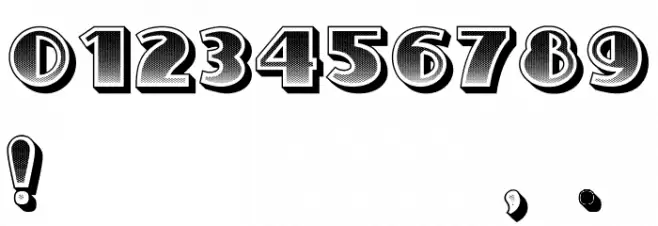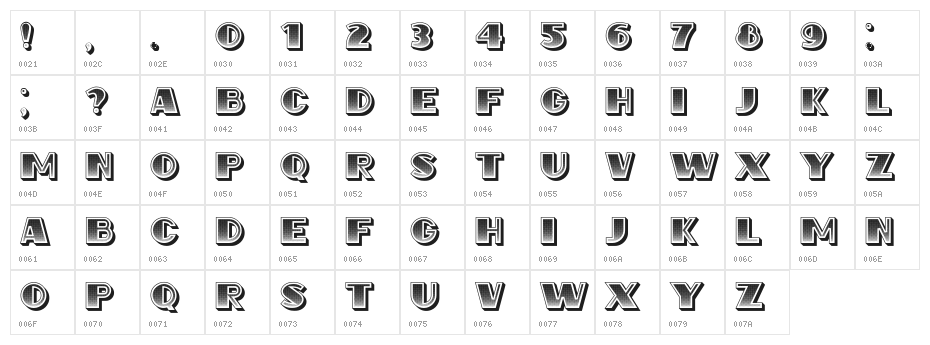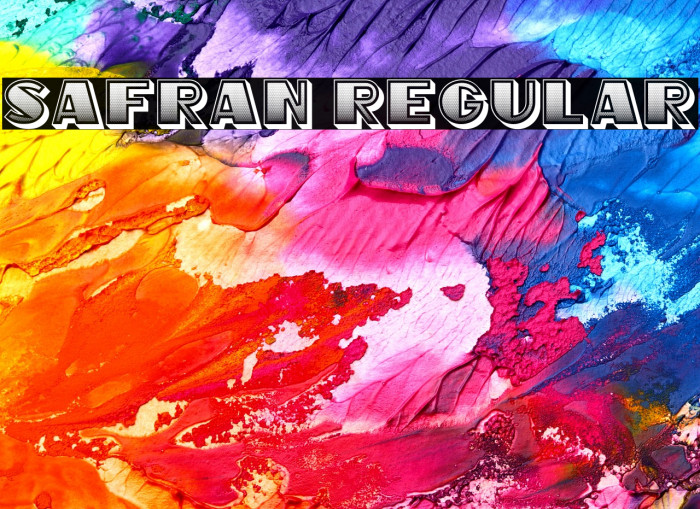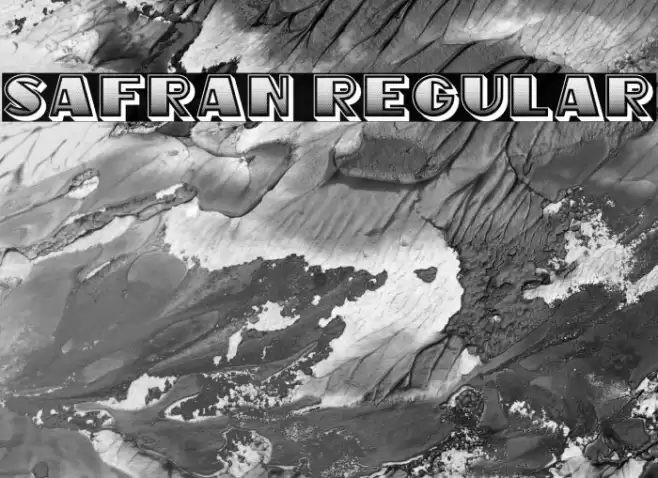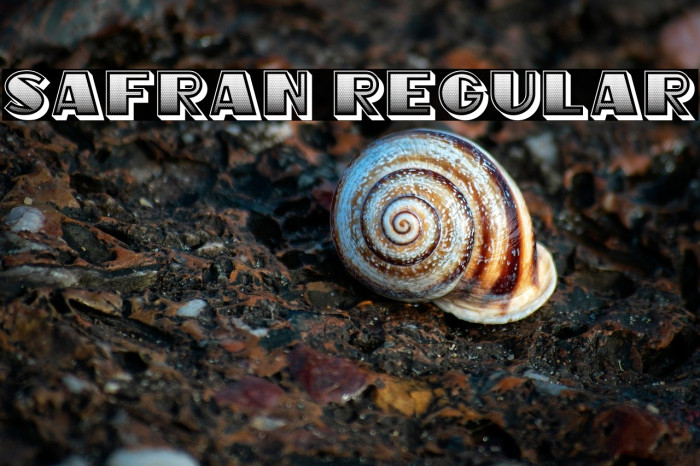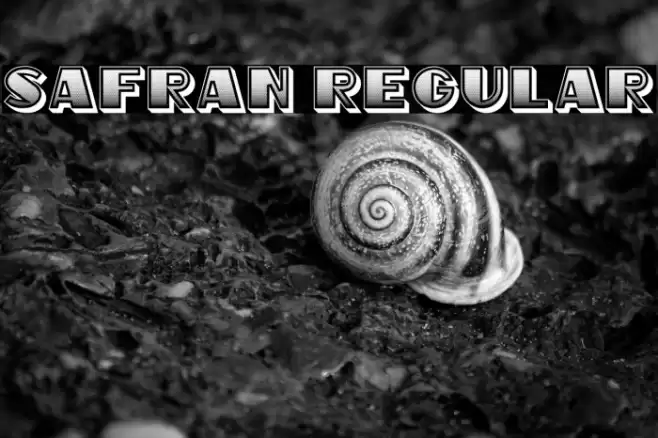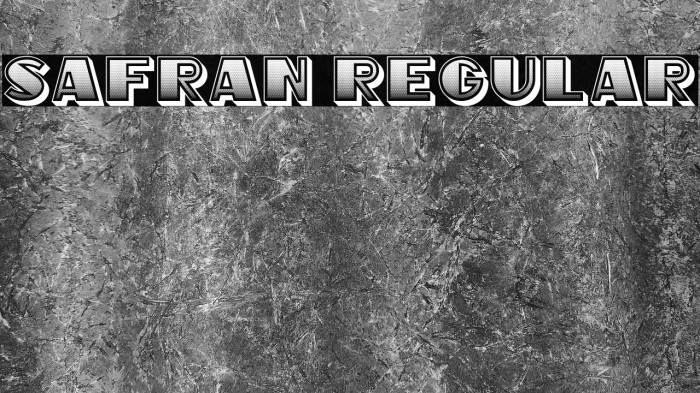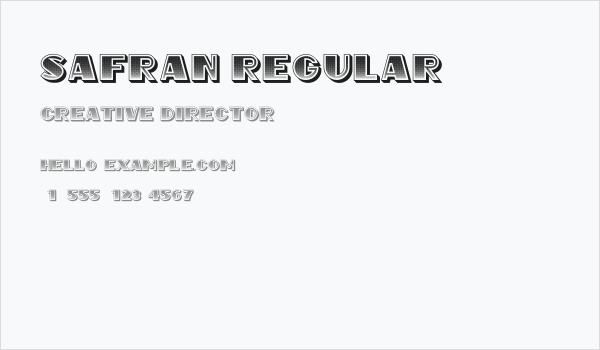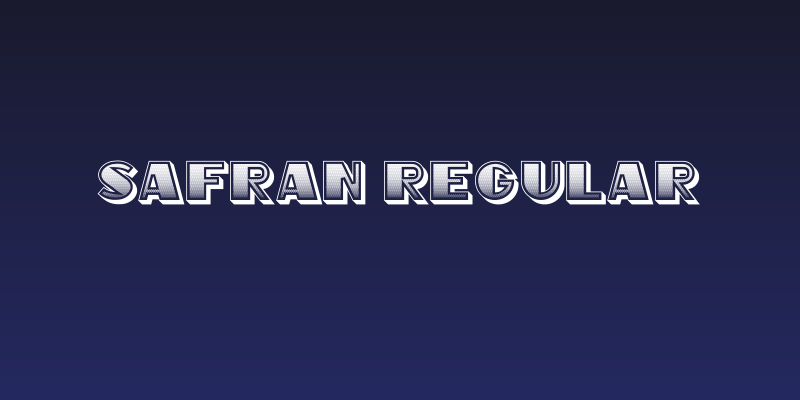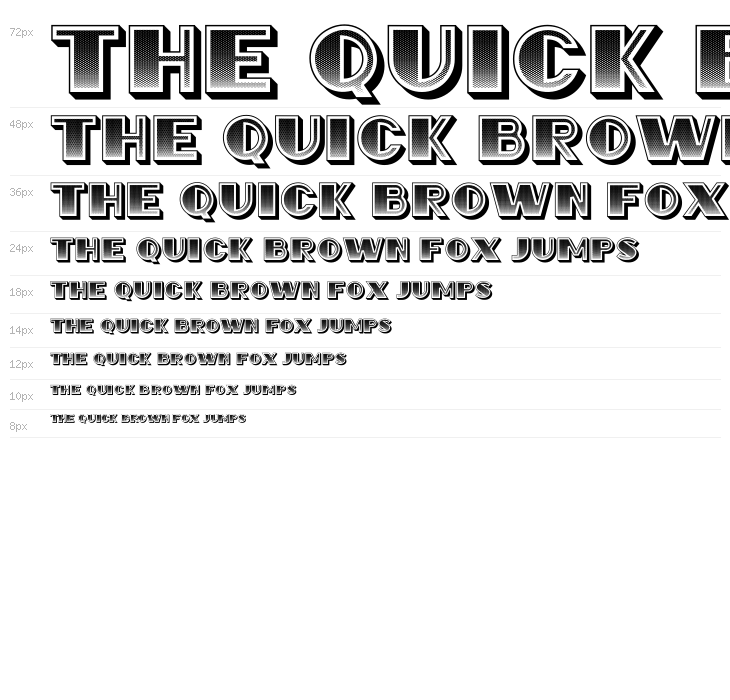
Safran Regular Font
Safran Regular Description
This font features a bold, decorative style with a three-dimensional effect created by a shadowed outline. The letters are uppercase and have a distinct, playful appearance, making them stand out with their thick strokes and dotted texture within the characters. The numbers and special characters follow the same design, ensuring consistency across all elements. The font's unique style is eye-catching and suitable for creative projects that require a strong visual impact.